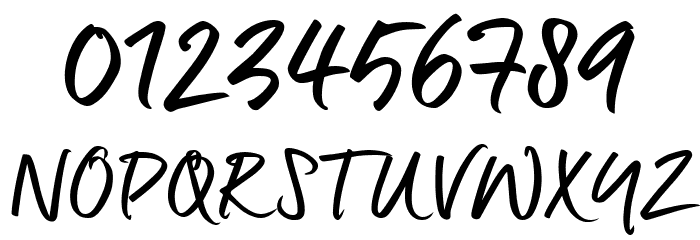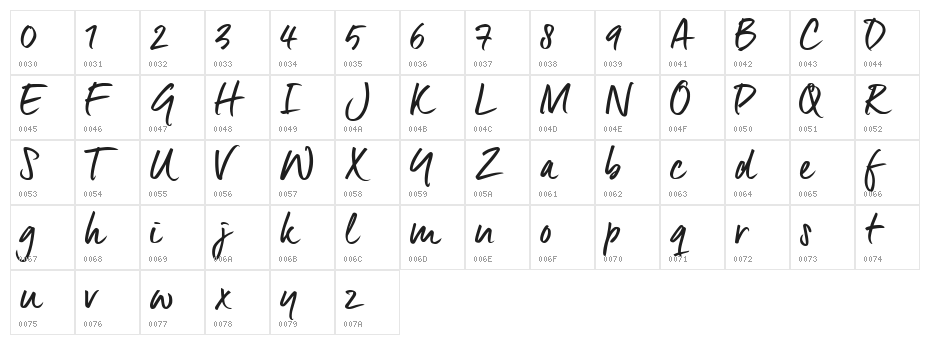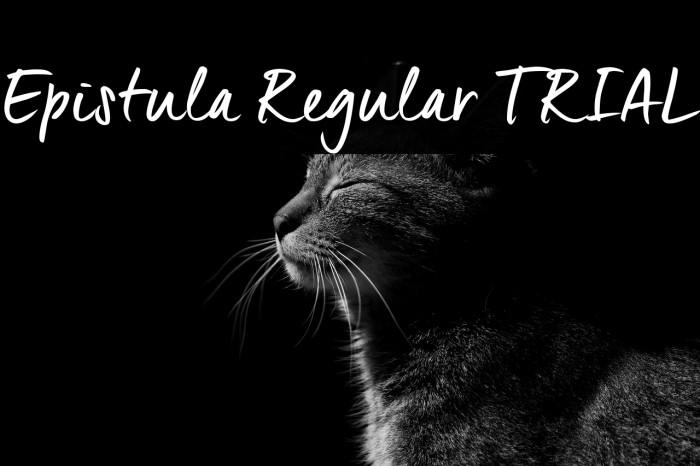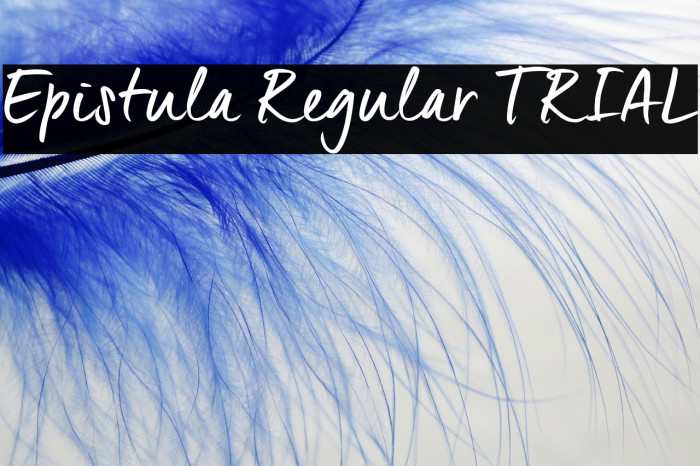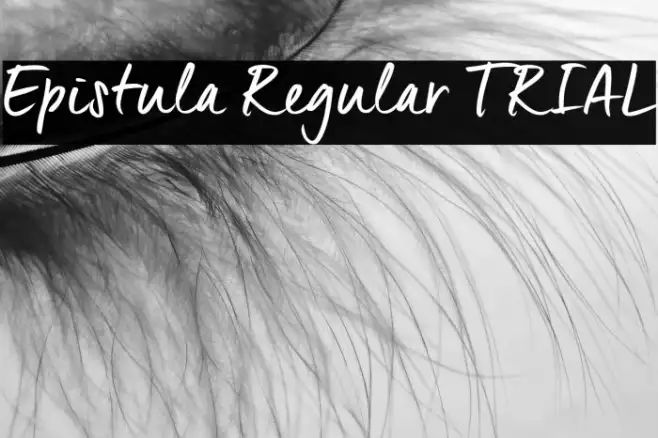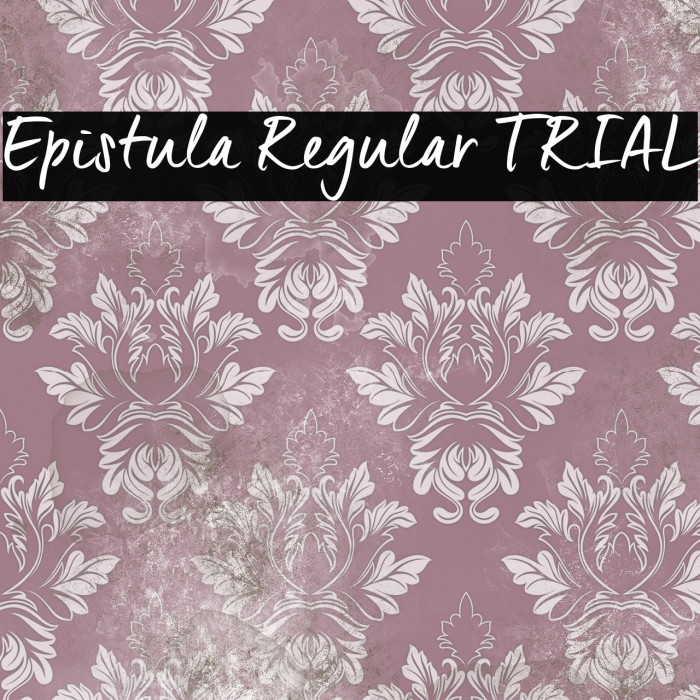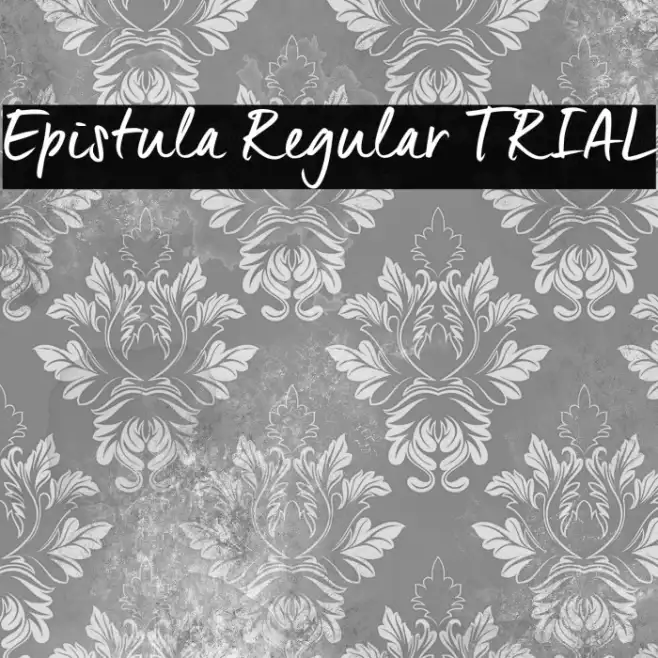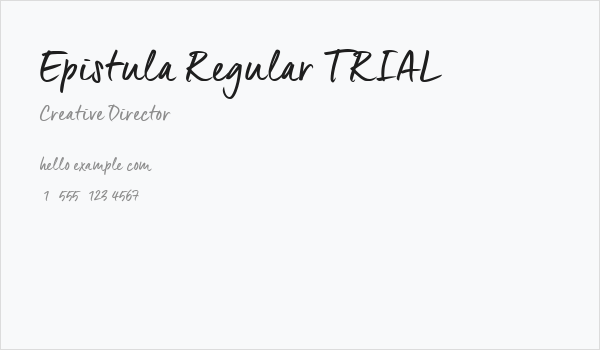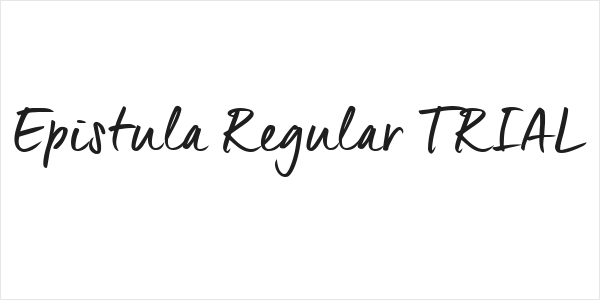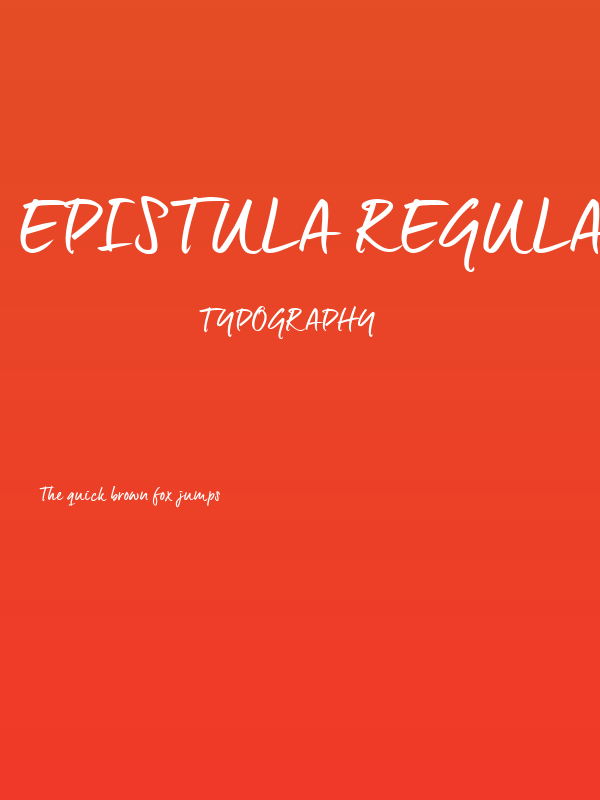
Epistula Regular TRIAL Font
Epistula Regular TRIAL Description
This font features a dynamic and fluid script style, characterized by its handwritten appearance. The letters are connected with smooth, flowing strokes, giving it an elegant and personal touch. The uppercase letters maintain a consistent height, while the lowercase letters exhibit a slight variation in size, adding to the organic feel. The numbers are clear and legible, matching the overall style of the alphabet. Special characters are seamlessly integrated, maintaining the font's cohesive look. This font is perfect for projects that require a personal, yet stylish touch.
| Proposed Projects | Ideal for wedding invitations, greeting cards, personal branding, and artistic projects. |